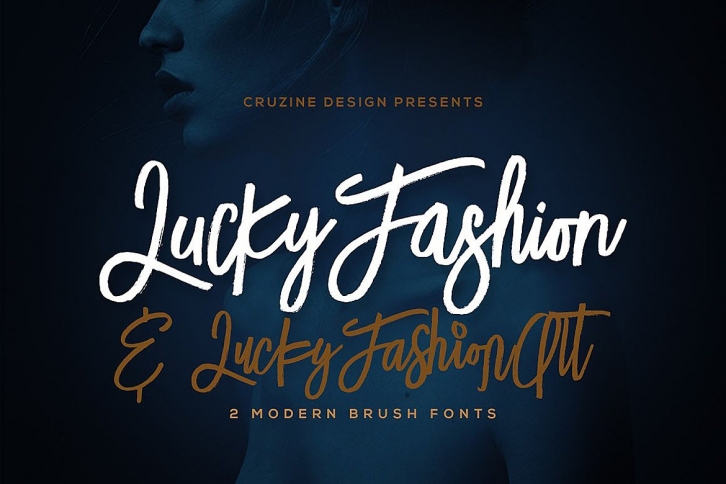
Lucky Fashion Brush is a great font that was designed by Cruzine Design. Imagine the amount of combinations you can create using this font! The archive is 3.30 MB and it was released on February 24, 2019. Lucky Fashion Brush looks beautiful on wedding invitations, greeting cards, logos, posters, labels, t-shirt designs, logos, business cards and is perfect for use in ink or watercolor works, fashion, magazines, packaging and food menus, children's books and more!